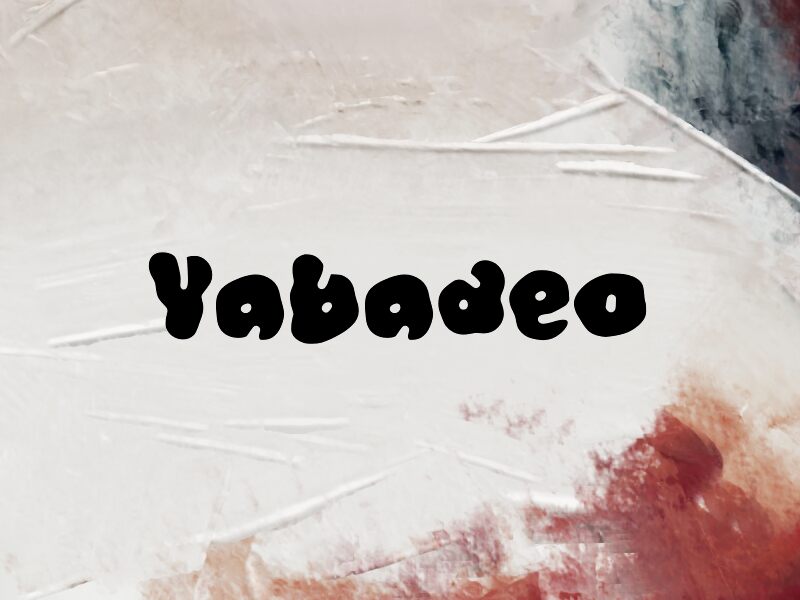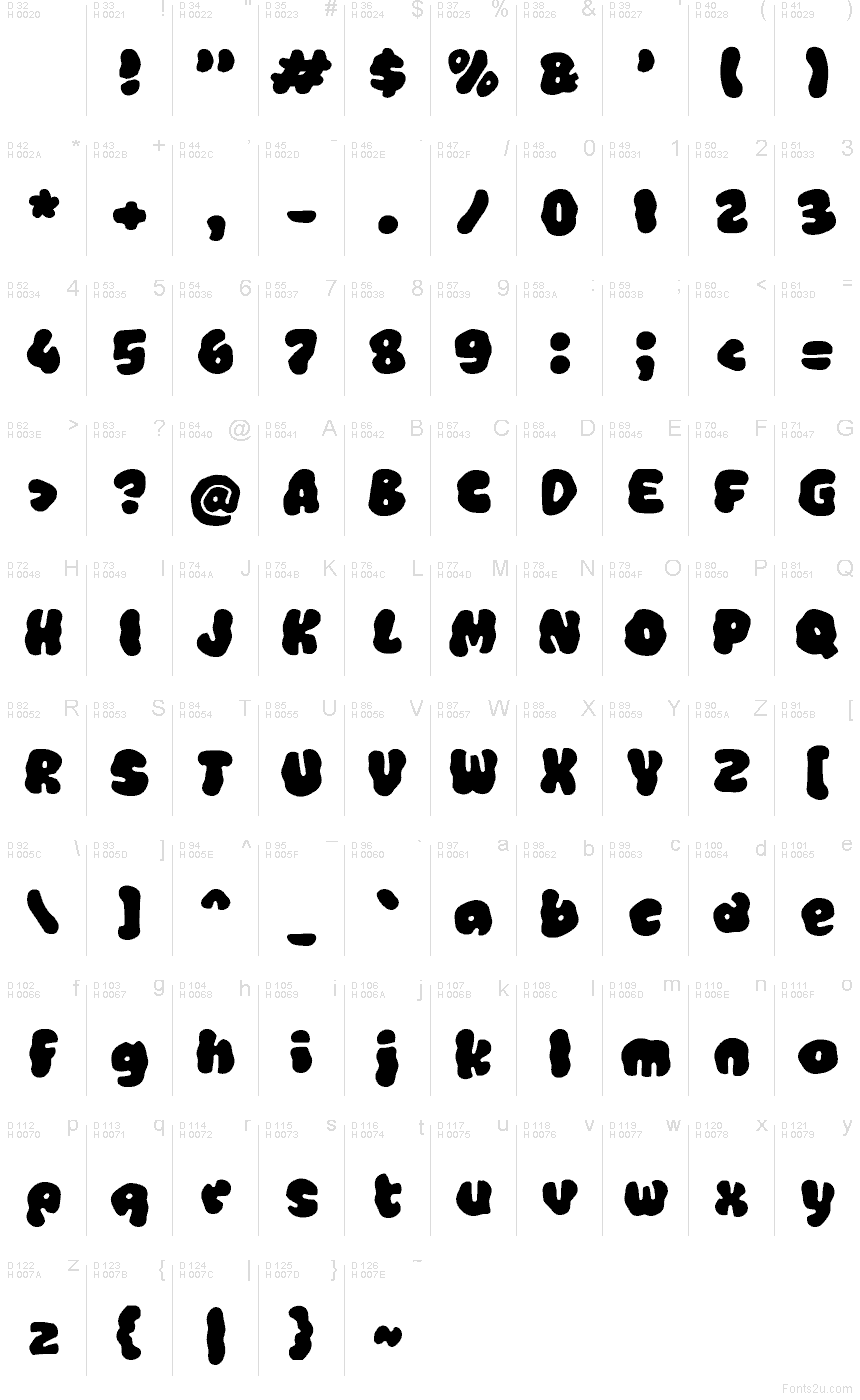
Yabadeo
Yabadeo font by wepfont.com is a free groovy display typeface that looks like it was poured onto the page in thick, inky bubbles. Each letter swells and wiggles with a soft, squishy outline, creating a playful rhythm that feels hand-drawn and a little wild. The chunky shapes close up tight, so words become bold, bouncing silhouettes that instantly grab attention and refuse to sit quietly in a layout.
Using Yabadeo, you can push loud, joyful visuals for party posters, kids’ branding, YouTube thumbnails, stickers, merch, and quirky headlines. This free font shines when it’s set big and bold, where its blobby curves can really breathe. Pair Yabadeo with a simple, clean sans serif for smaller text to keep things readable while the main lettering does all the groovy, attention-stealing work.